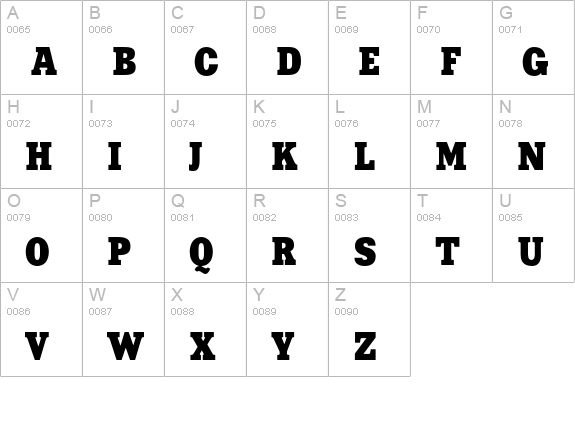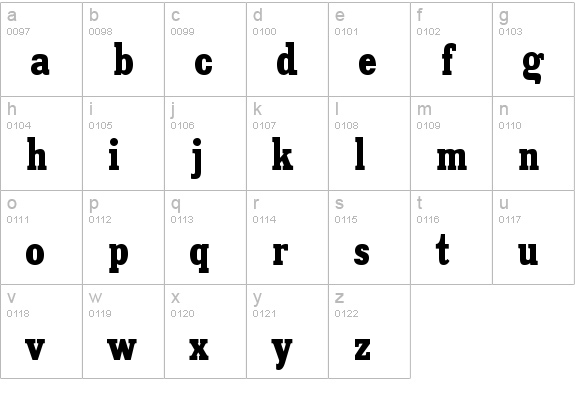
PT XeniaCondensed Cyrillic Font Details
PT XeniaCondensed Cyrillic is a modern and sophisticated font that exudes elegance and professionalism. With its sleek and condensed design, this font is perfect for creating sleek and contemporary designs across various projects. The Cyrillic characters add a unique touch, making it suitable for multilingual designs and projects. The best part about PT XeniaCondensed Cyrillic font is that it is completely free to download at FontsMarket.com. Whether you are working on branding, advertising, packaging, or any other design project, this font will elevate your work and make it stand out. Embrace the versatility and style of PT XeniaCondensed Cyrillic font and take your designs to the next level. Download it for free now at FontsMarket.com!